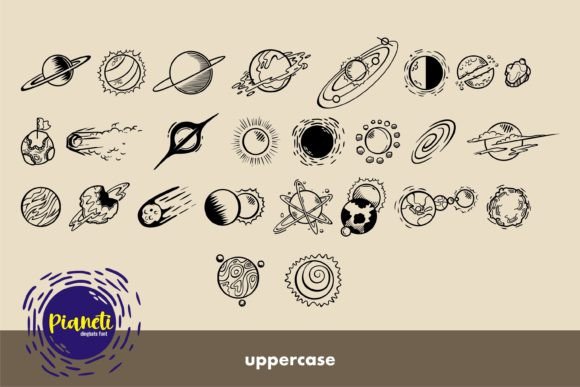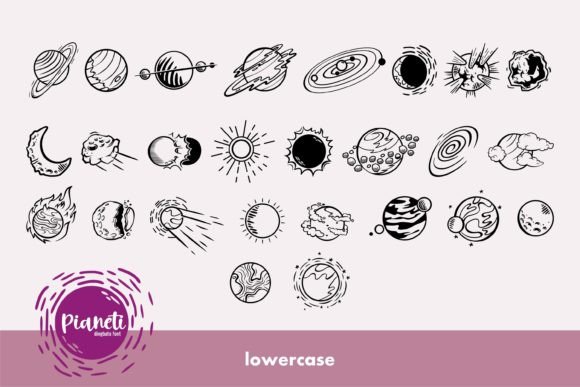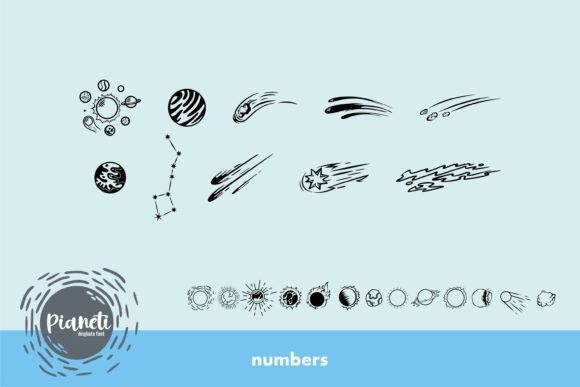
Discover the Power of Pianeti Font
Have you ever been working on a creative project, pouring your heart and soul into it, only to feel like something’s missing? That’s when you stumble upon a game-changing design resource that elevates your entire project. For many designers, this moment of discovery is what sets their work apart from the rest. For us, it’s the Pianeti Font.
This incredible dingbats font is more than just a pretty face; it’s a versatile tool that can add a touch of whimsy and personality to any design. With its high-quality, transparent background, Pianeti Font is perfect for designers looking to create eye-catching graphics, illustrations, and more. And the best part? It’s available for free download, making it an invaluable asset for any creative project.
Key Features of Pianeti Font
- Unique, hand-drawn style with a transparent background, ideal for backgrounds, overlays, and textures.
- Perfect for use in digital designs, such as website headers, social media graphics, and mobile app interfaces.
Honest Review: Pianeti Font
I recently had the chance to work with the Pianeti Font for a creative project, and I must say, it’s been a delightful experience. The Pianeti Font is a fantastic design resource that offers a lot of character and charm.
- ✨ High-quality design: The font’s unique and intricate details make it perfect for projects that require a touch of sophistication.
- ✨ Transparent background: The font’s transparent background makes it easy to combine with other design elements and backgrounds.
- ⚠️ Limited font styles: The Pianeti Font is available in a limited number of styles, which may not be ideal for projects that require a wide range of font options.
- ⚠️ Not suitable for small text: Due to its intricate details, the Pianeti Font may not be the best choice for projects that require small text.
Overall, the Pianeti Font is a high-quality design resource that is perfect for creative projects that require a touch of sophistication and elegance. While it has some limitations, it’s definitely worth considering for your next design project.
Tips for Getting the Most Out of Pianeti Font
For the best results, use Pianeti Font in conjunction with a high-quality image or background to create a visually appealing design. You can also experiment with different font sizes and styles to add depth and interest to your project.
Pianeti Font is perfect for use in a variety of creative projects, including social media graphics, presentations, and marketing materials. Its unique design and transparent background make it an ideal choice for designers looking to add a touch of elegance to their work.
Q: Does Pianeti Font have a transparent background, making it suitable for overlaying on images?
Yes, Pianeti Font has a transparent background, making it ideal for overlaying on images or using as a design element in creative projects. The font’s transparent background allows for seamless integration with your design, giving you more flexibility and creative freedom.